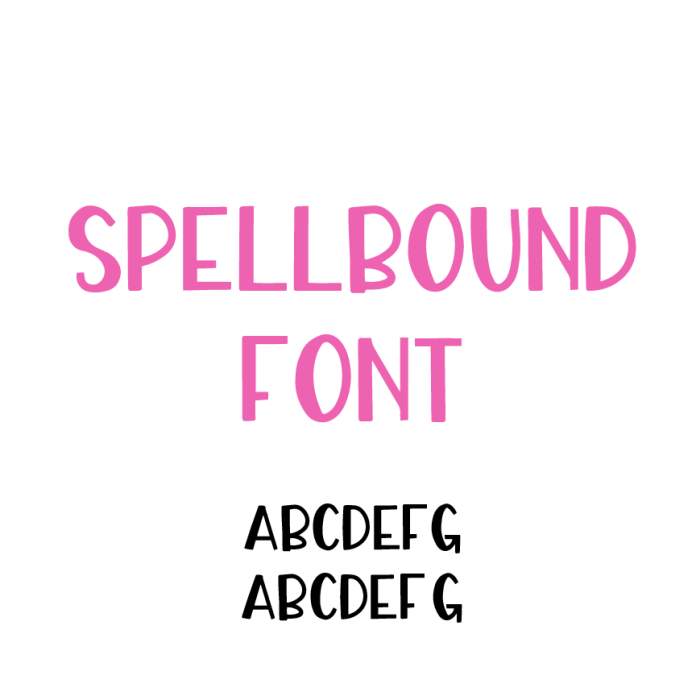
Introducing Spellbound Font – a dynamic, thick and thin sans serif that adds bold contrast and drama to your Silhouette crafts! With its striking combination of thick and thin strokes, Spellbound is perfect for creating eye-catching titles, logos, vinyl decals, posters, and more. This cut-friendly font ensures clean, precise cuts on your Silhouette machine, making it ideal for both modern and edgy designs. Whether you're crafting bold signage, custom T-shirts, invitations, or unique DIY projects, Spellbound delivers a powerful visual impact every time. Download Spellbound today and bring a touch of dramatic style to your creative designs!